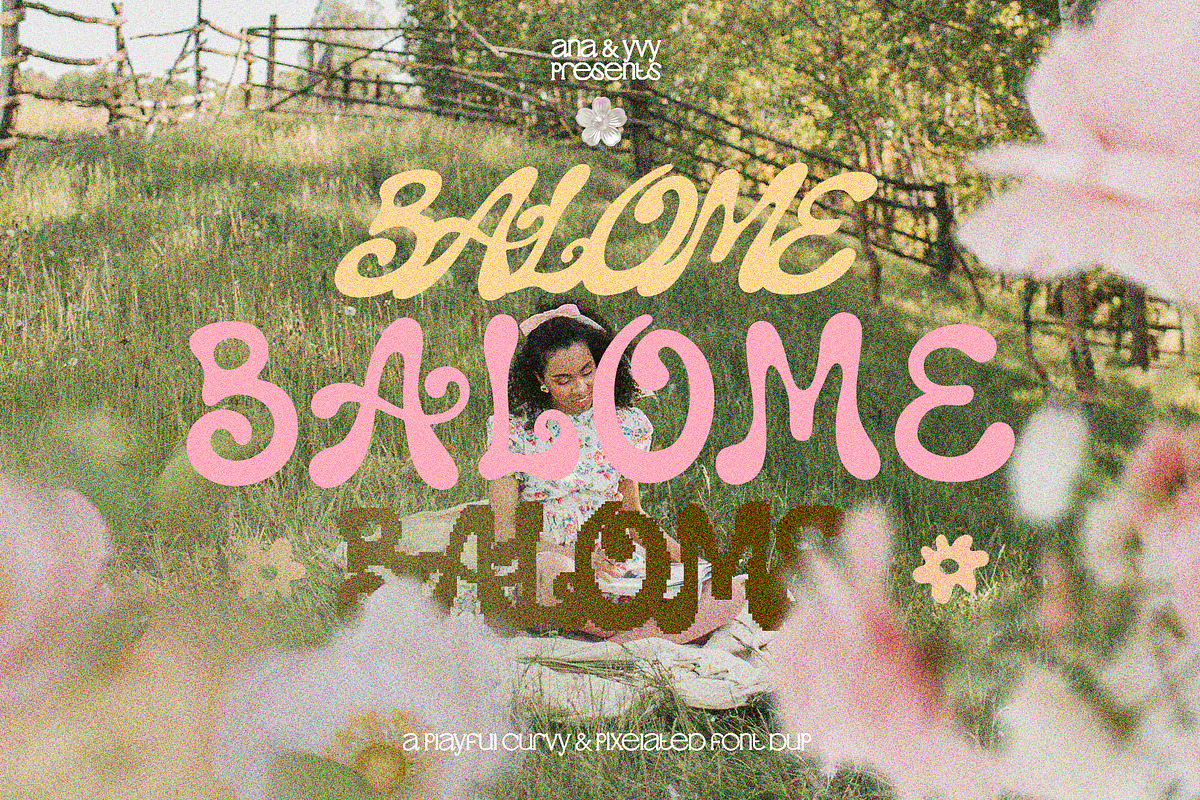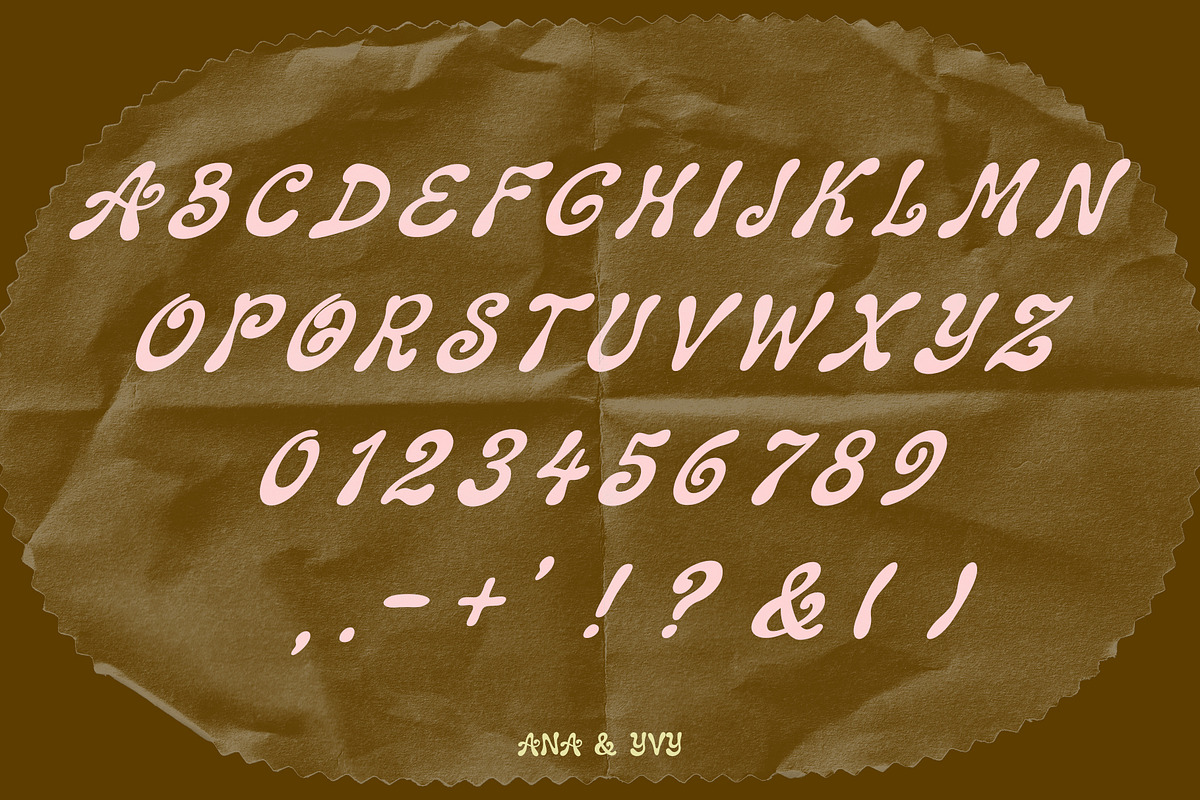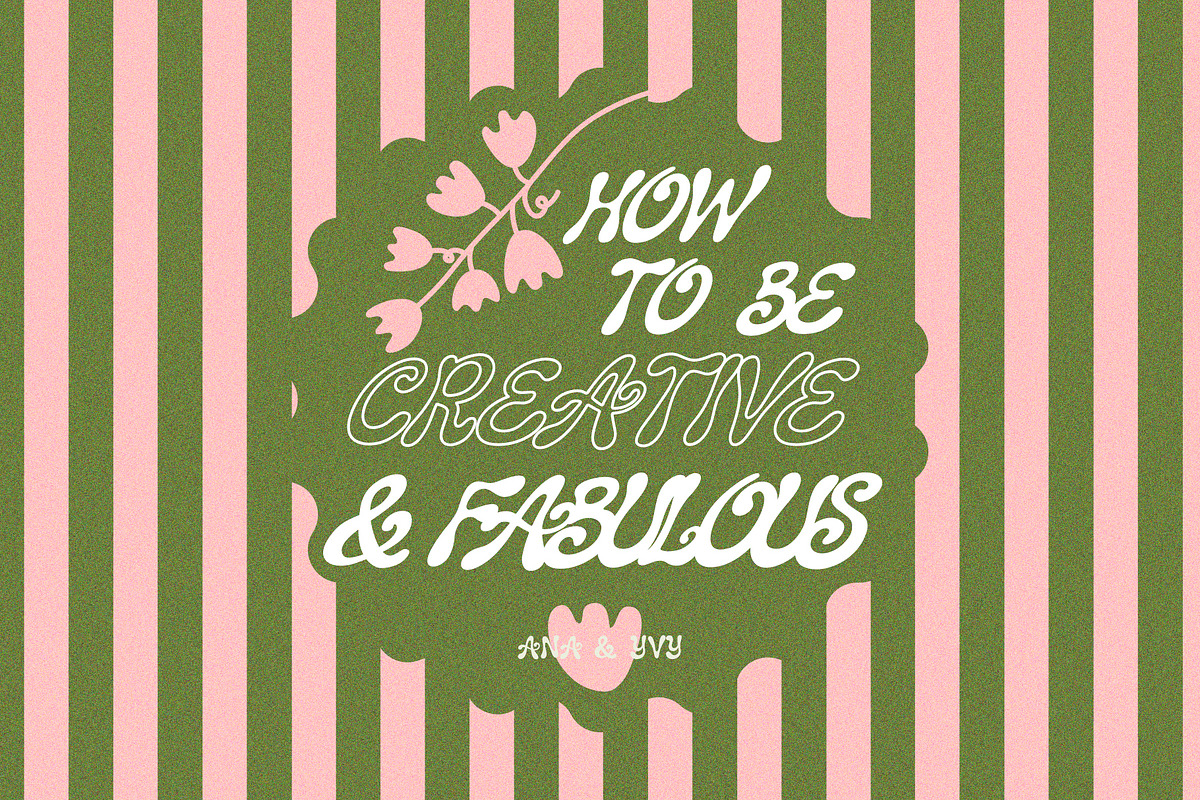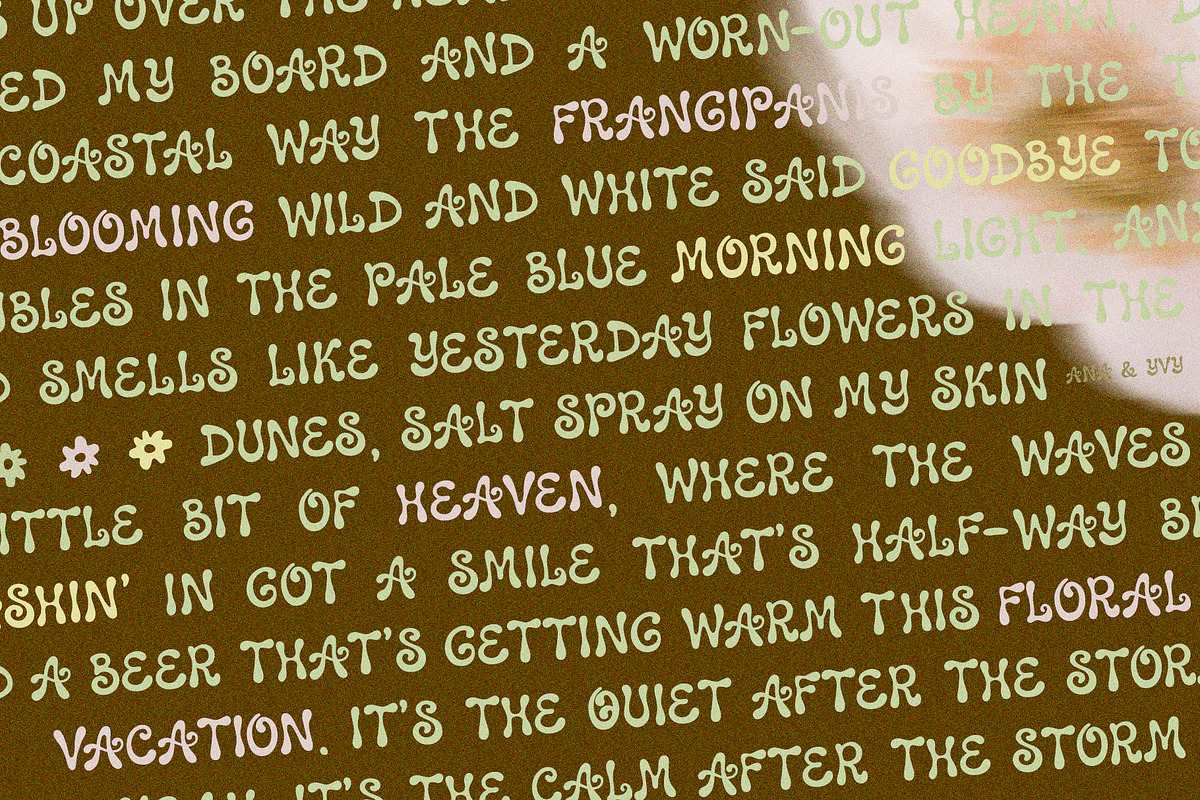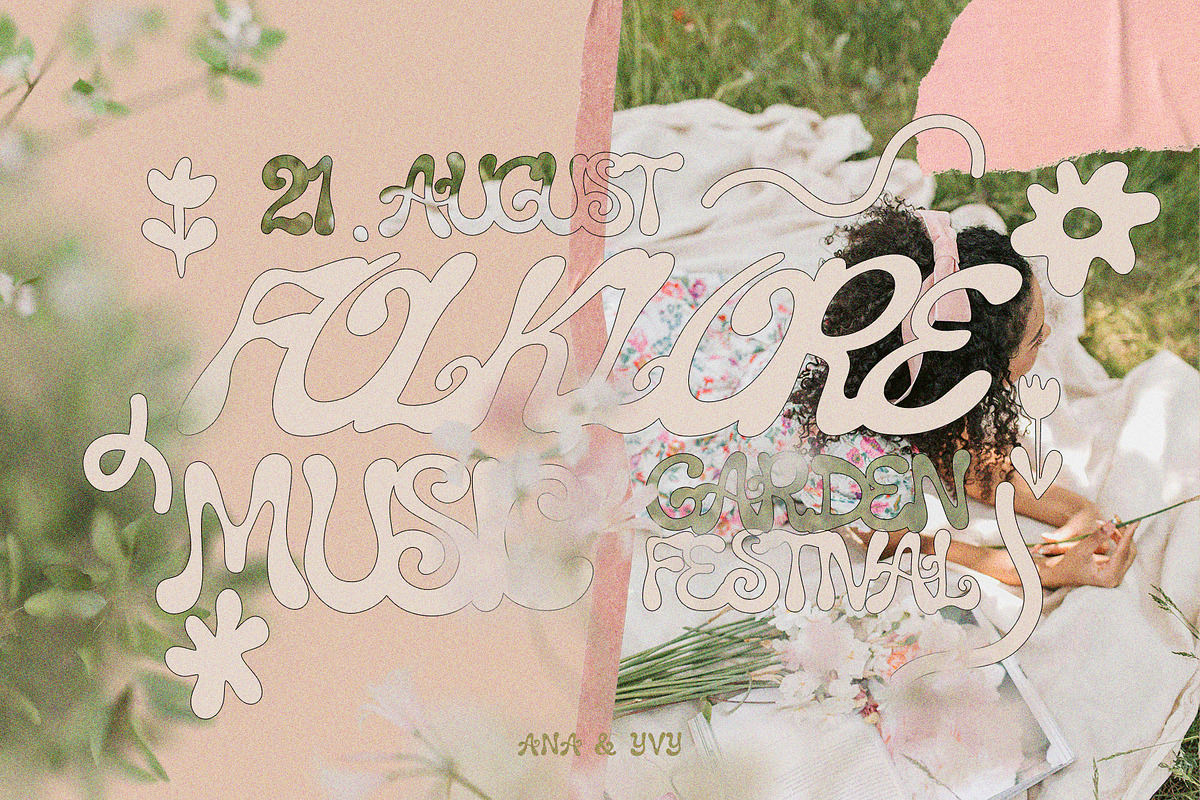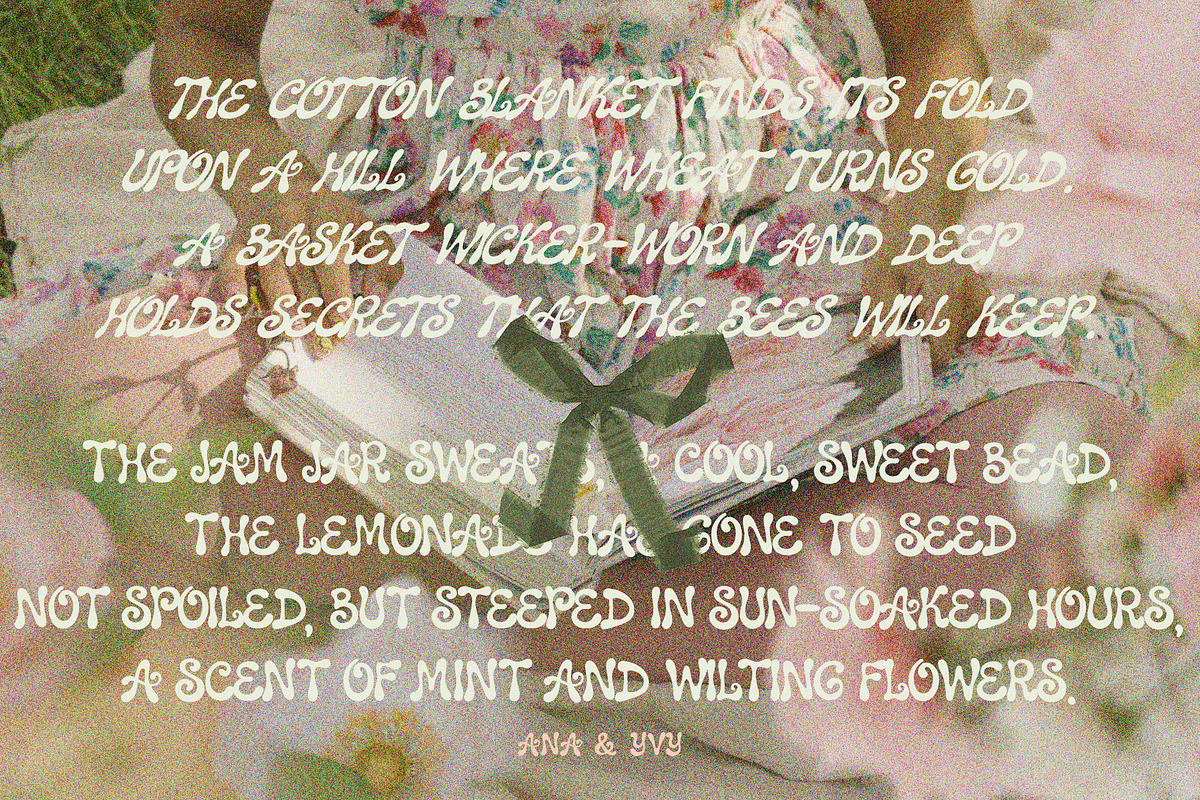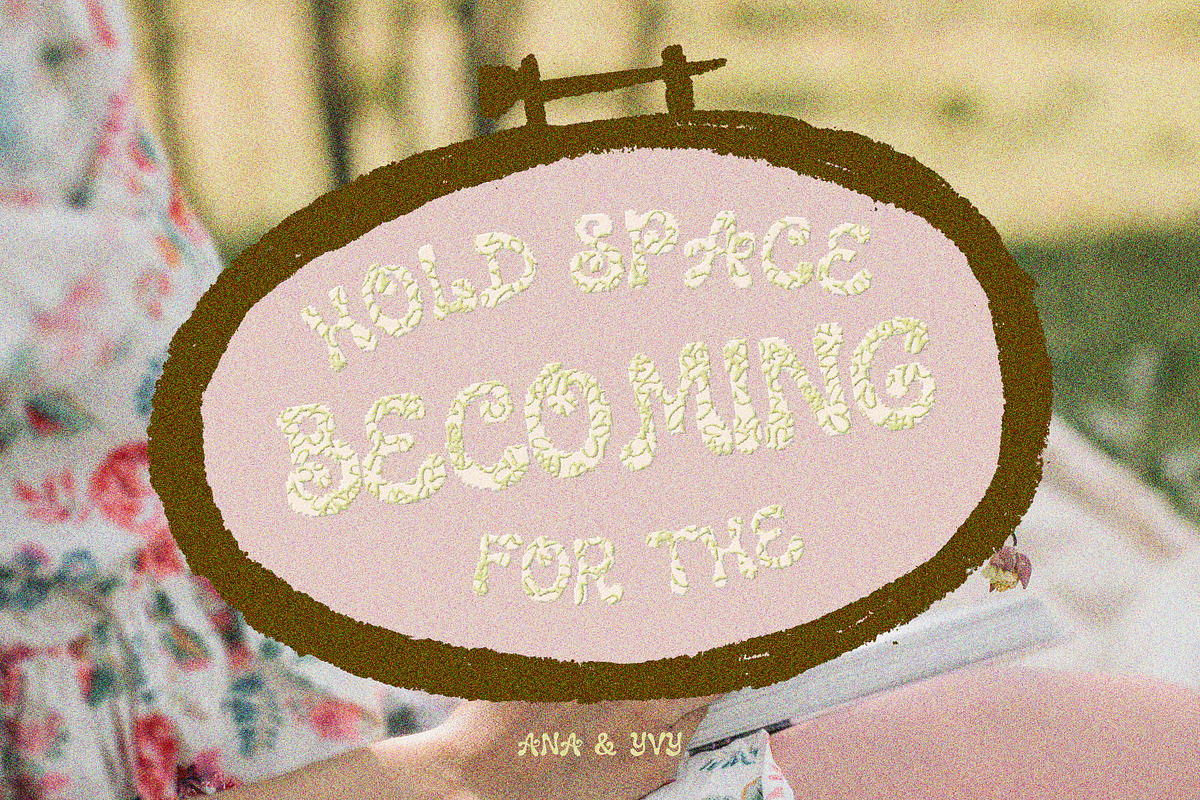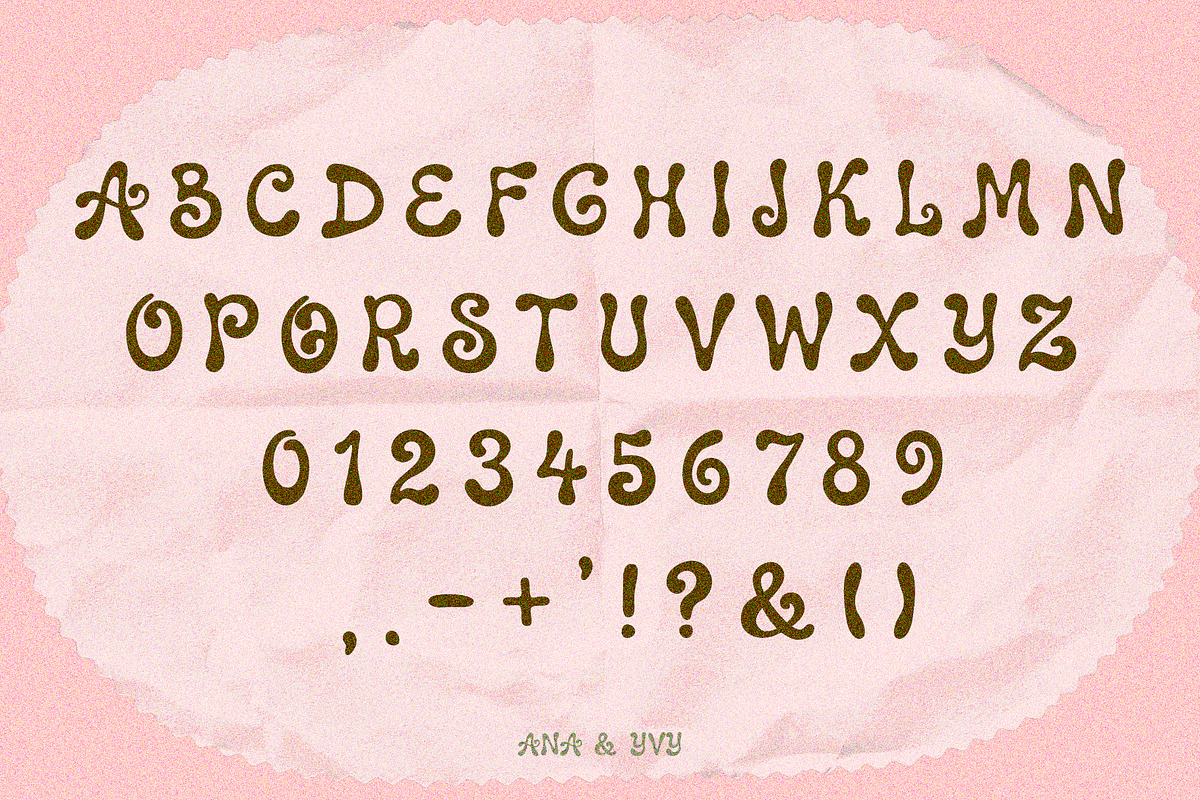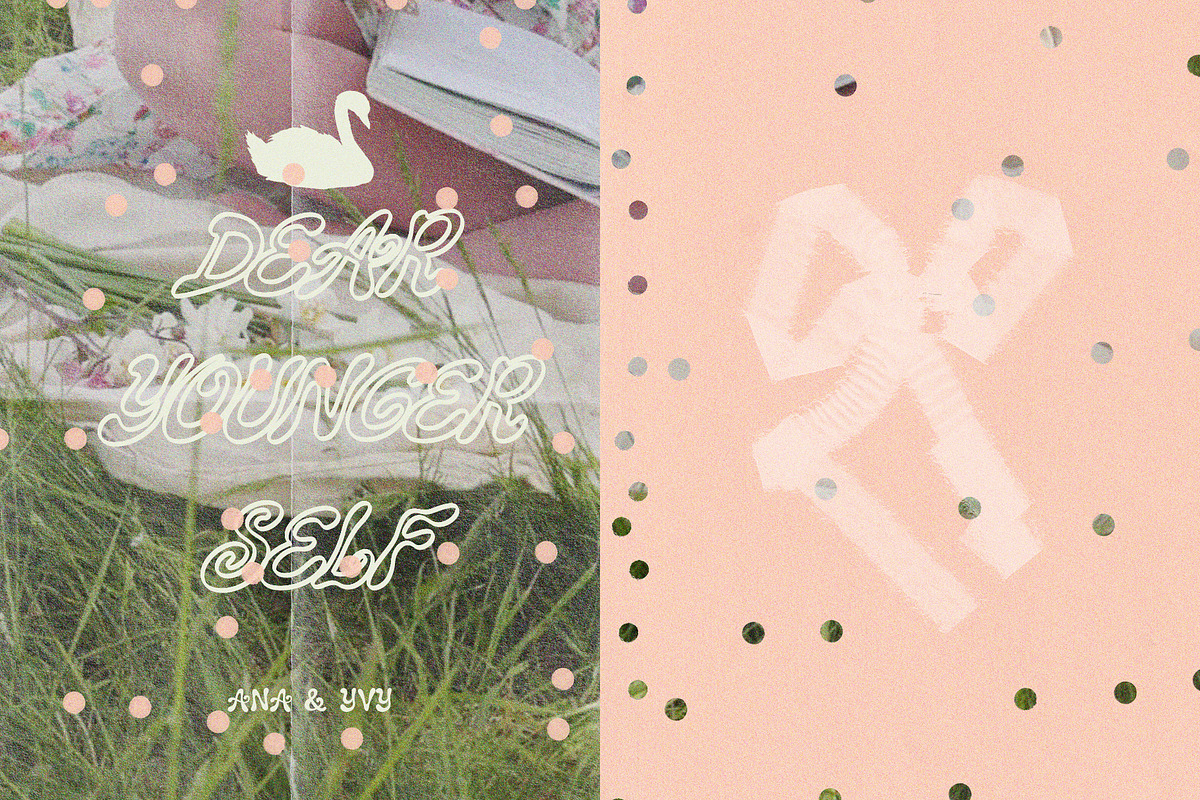
BALOME | Curvy Display Font
Balome is an all caps curvy display font. With a sun drenched throwback with a 2000s twist; Balome is not just a font, but a true homage to the 2000s and the era of the flower children. This curvy all caps display font combines playful letterforms with flowing curves. It captures the free spirited energy of a ’70s summer, the charm of a flower child, and the bold nostalgia of the early 2000s.
Whether you’re designing for a beach brand or a digital mood board, Balome infuses every letter with warmth, groove, and personality.
Its playful letterforms and flowing curves make it a versatile choice for branding, packaging, posters, social media graphics, beach café menus, and travel themed designs and feminine branding.